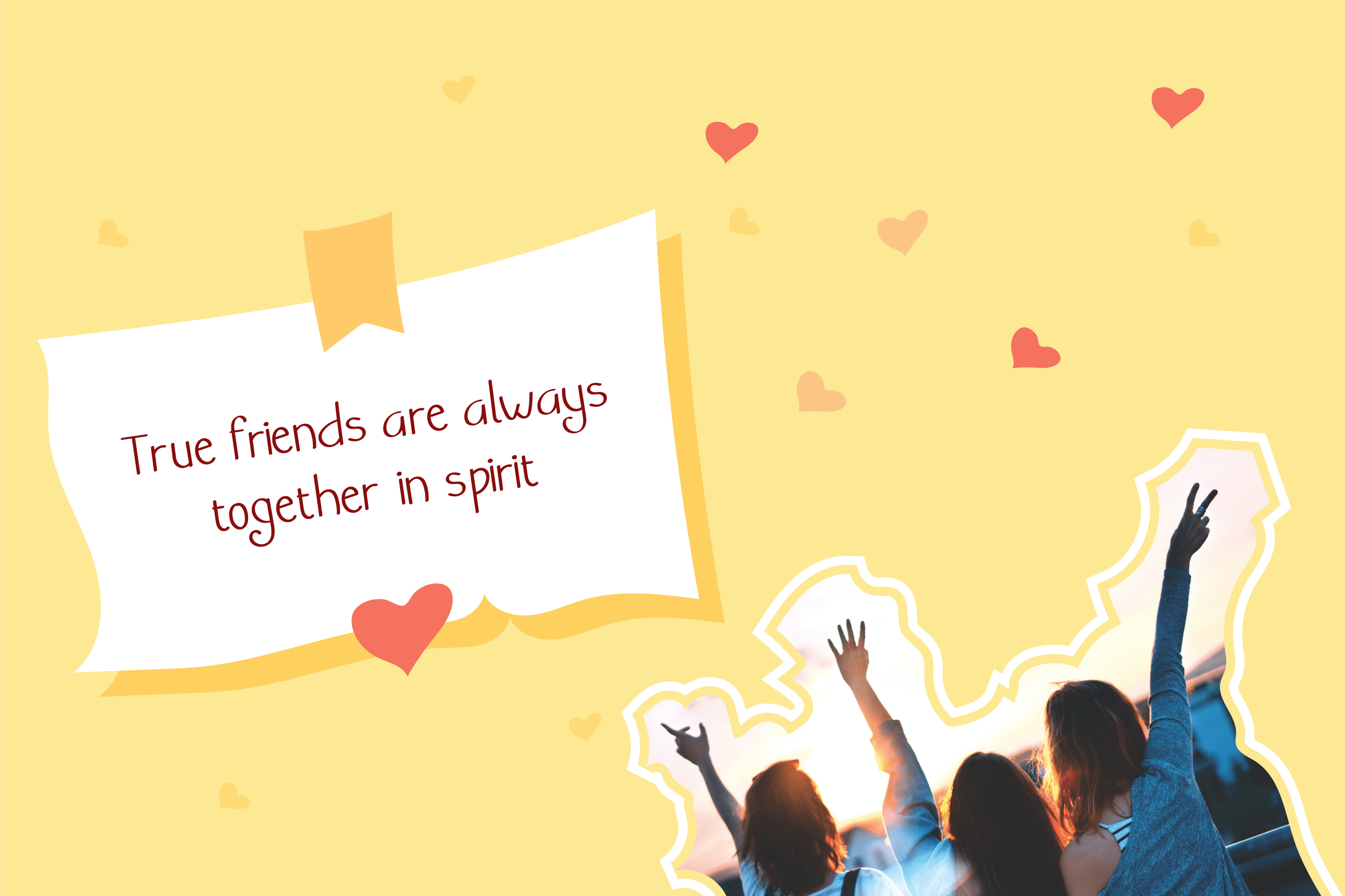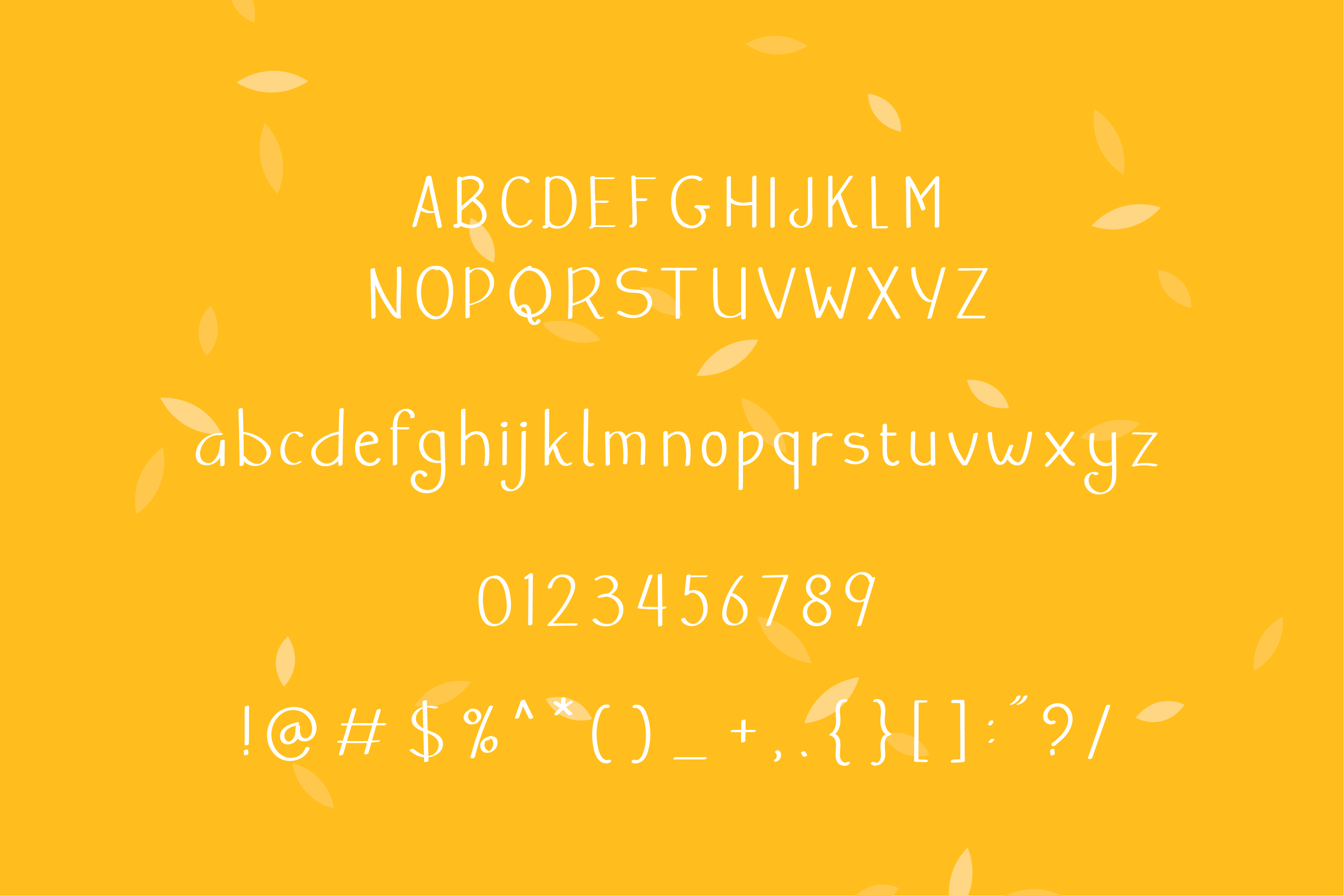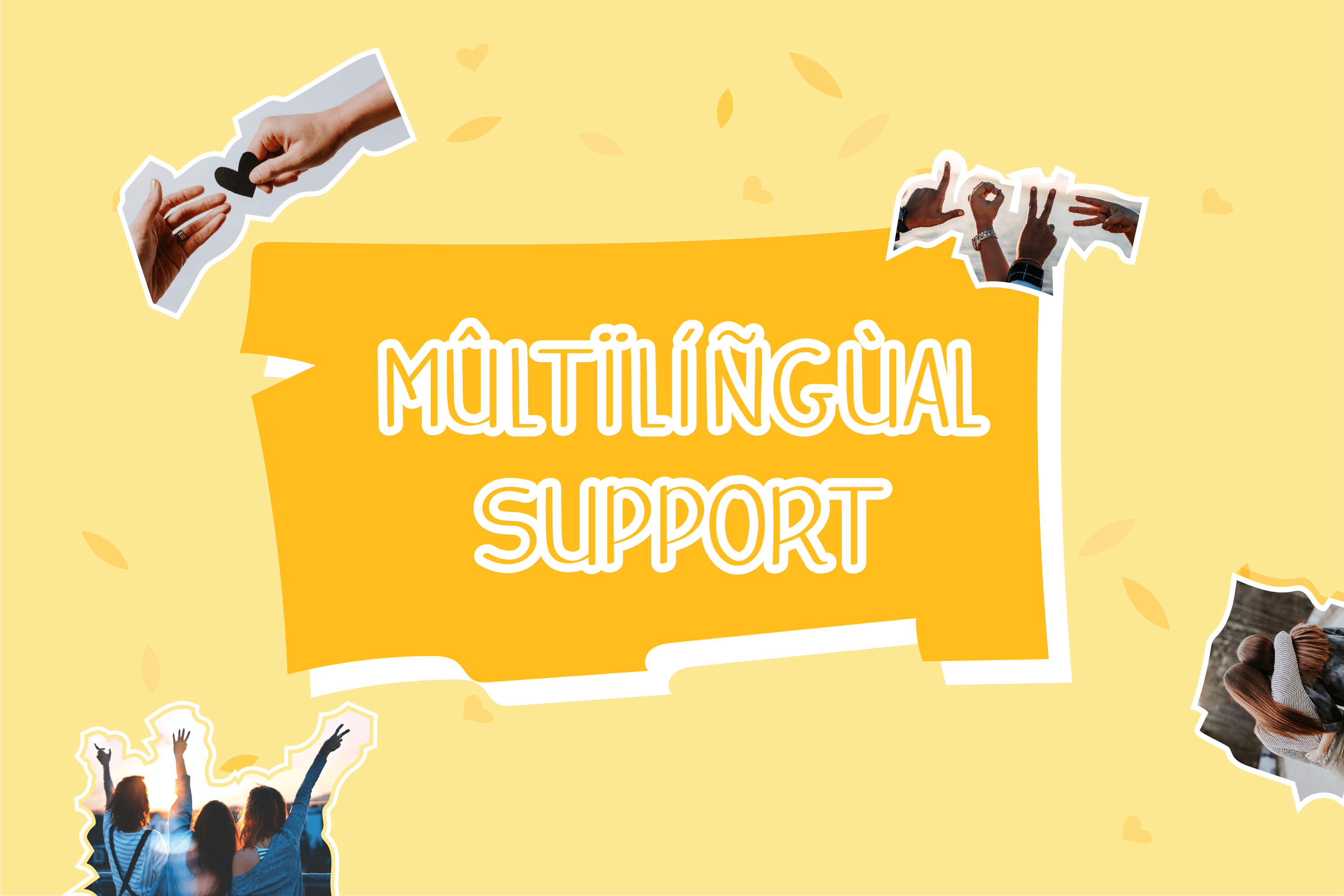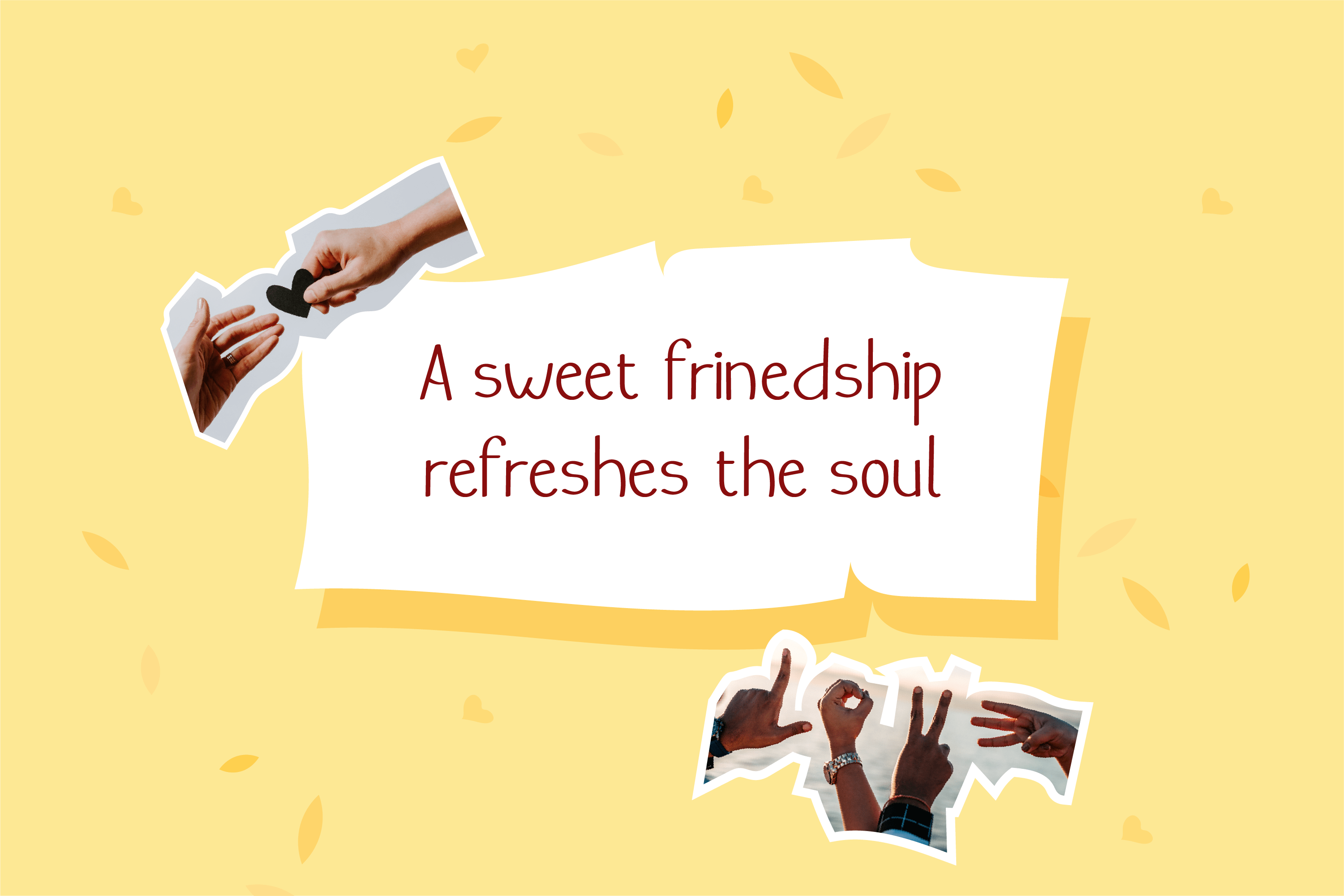
Besties Forever font
Besties Forever Display font
This font is a great font for your any project! This font made with unique taste, comes with natural touch. Besties Forever is the great choice for watermark on branding, design, wedding, photography, signature, logo design, album cover, business card, quotes, and many other design project.